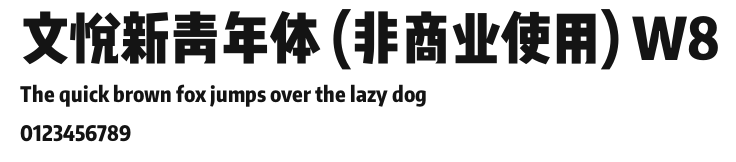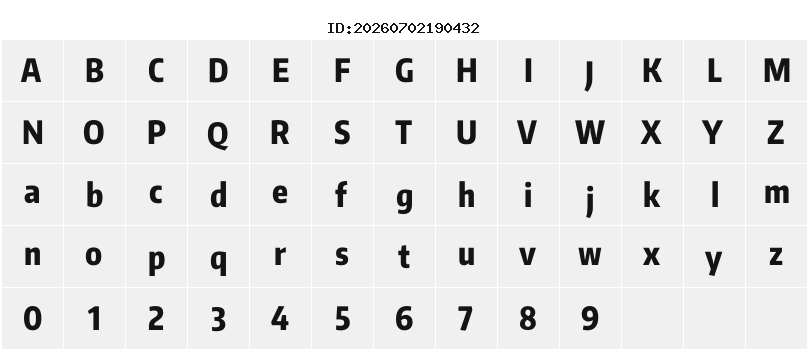
• Font Name: 文悦新青年体 (非商业使用) W8
• Manufacturer: 文悦科技(北京)有限公司
About 文悦新青年体 (非商业使用) W8.ttf
文悦新青年体 (非商业使用) W8.ttf is a modern, elegant sans-serif font designed for ultimate readability and visual harmony. Perfect for branding, headlines, web design, and print materials.